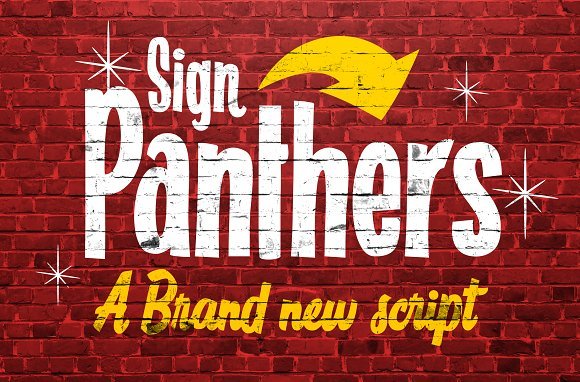
Sign Panters Script Font
Introduce to you a new script font family. That is Sign Panters Script Font! Sign Panters designed by Konstantine Studio. A double fonts with implementations from sign painting style which are very hype in that era (you name it, as long as its old, its all good). When you need something bold, strong, classic, and punch you in your face, they’re never get any wrong with that.